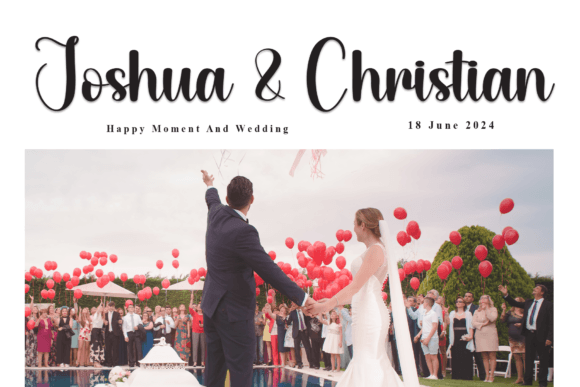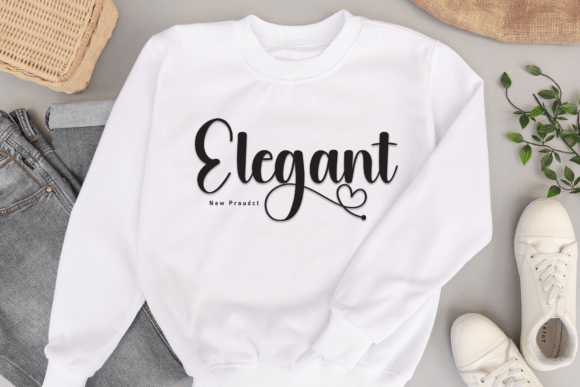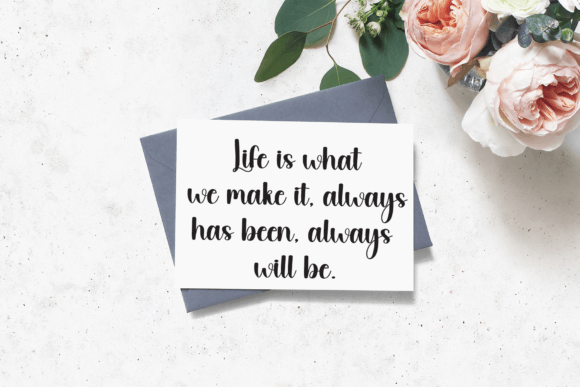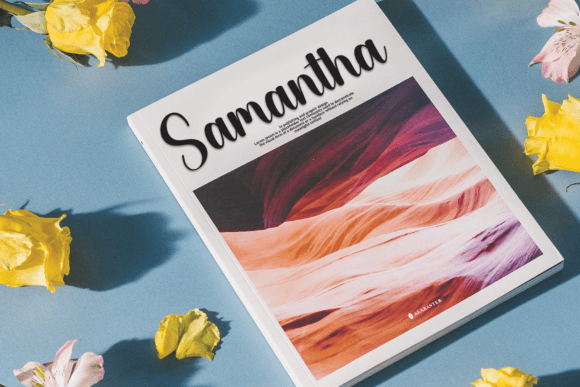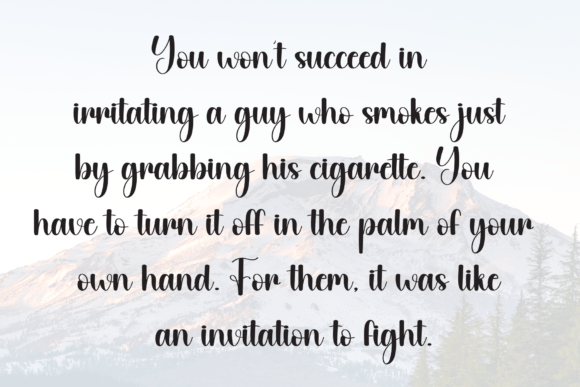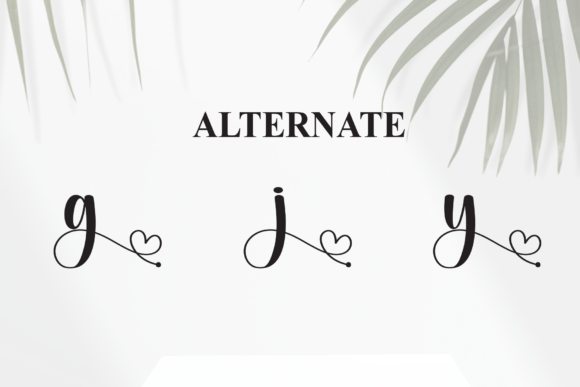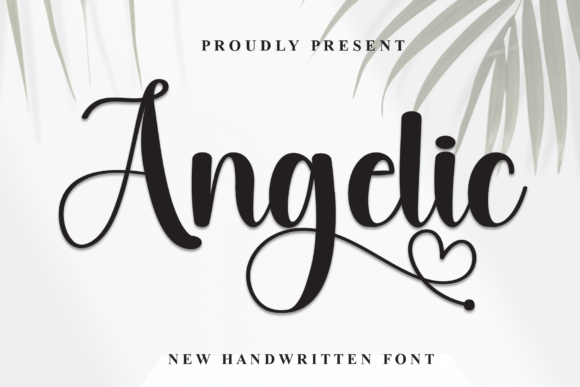
Introducing Angelic Font: A Sweet and Friendly Handwritten Delight
Are you on the hunt for a font that exudes warmth, friendliness, and a touch of whimsy? Look no further than Angelic Font, a beautiful handwritten font that’s sure to capture your heart. With its natural and unique style, Angelic Font is an incredibly versatile addition to any design project, limited only by your imagination.
The Charm of Angelic Font
Angelic Font is a sweet and friendly handwritten font that boasts a distinctive, personal touch. Its flowing lines and gentle curves evoke a sense of warmth and approachability, making it perfect for designs that require a human touch. Whether you’re working on a project for a children’s brand, a lifestyle blog, or a crafty endeavor, Angelic Font is sure to bring a smile to your audience’s faces.
The beauty of Angelic Font lies in its versatility. Its unique style makes it incredibly fitting for a wide range of designs, from:
• Children’s books and educational materials: Angelic Font’s playful, whimsical feel makes it an excellent choice for kids’ content.
• Lifestyle blogs and social media: Add a touch of warmth and personality to your online presence with this delightful font.
• Crafting and DIY projects: Angelic Font is perfect for crafty endeavors, such as handmade cards, gift tags, and scrapbooking.
• Branding and packaging: Use Angelic Font to create a friendly, approachable brand identity that resonates with your audience.
What Makes Angelic Font Special?
So, what sets Angelic Font apart from other handwritten fonts? Here are just a few reasons why designers and crafters love this sweet font:
• Unique character: Angelic Font has a distinctive, one-of-a-kind style that’s sure to make your designs stand out.
• Easy to read: Despite its whimsical feel, Angelic Font is incredibly legible, making it perfect for body text and headings.
• Highly versatile: Use Angelic Font in a variety of design contexts, from digital projects to print materials.
Tips for Using Angelic Font
To get the most out of Angelic Font, try these expert tips:
• Pair with bold fonts: Combine Angelic Font with a bold, contrasting font to create visual interest and hierarchy.
• Experiment with colors: Angelic Font looks beautiful in a range of colors, from soft pastels to rich jewel tones.
• Add embellishments: Consider adding illustrations, graphics, or textures to enhance your design and make it more engaging.
Get Creative with Angelic Font
In conclusion, Angelic Font is a beautiful, versatile handwritten font that’s perfect for designers and crafters looking to add a touch of warmth and personality to their projects. With its unique style, ease of use, and endless design possibilities, Angelic Font is an excellent addition to any creative toolkit. So go ahead, get creative, and make your designs shine with Angelic Font!